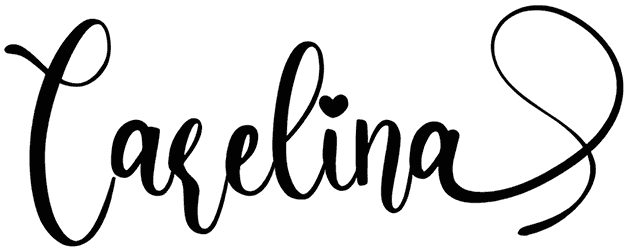
Lucy Said Ok Font
Lucy Said Ok is a charming Valentine font beautifully decorated with hearts to show your passionate love in the best possible way. It has a calligraphy style that makes an excellent picture. This font doesn’t support numbers and most punctuation. You can use it for apparel printing, wedding invitations, book covers, anniversary gifts, and any other design that needs a romantic touch.